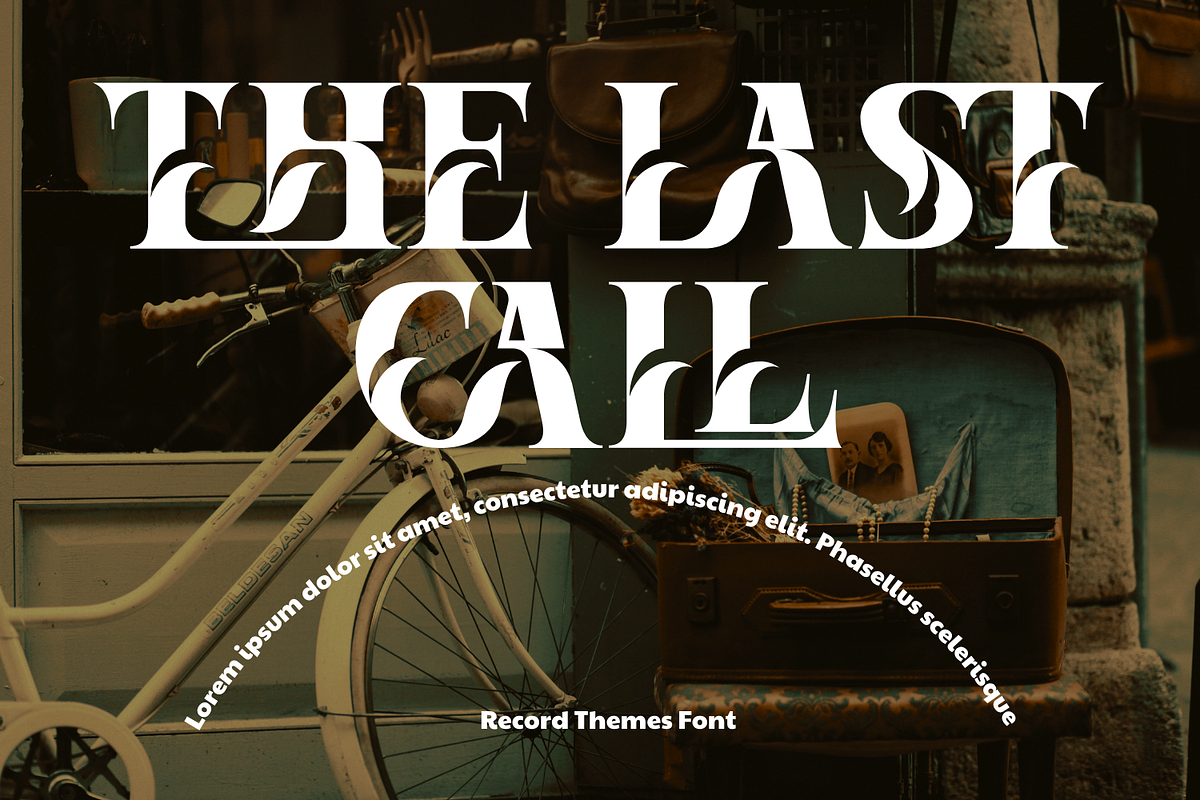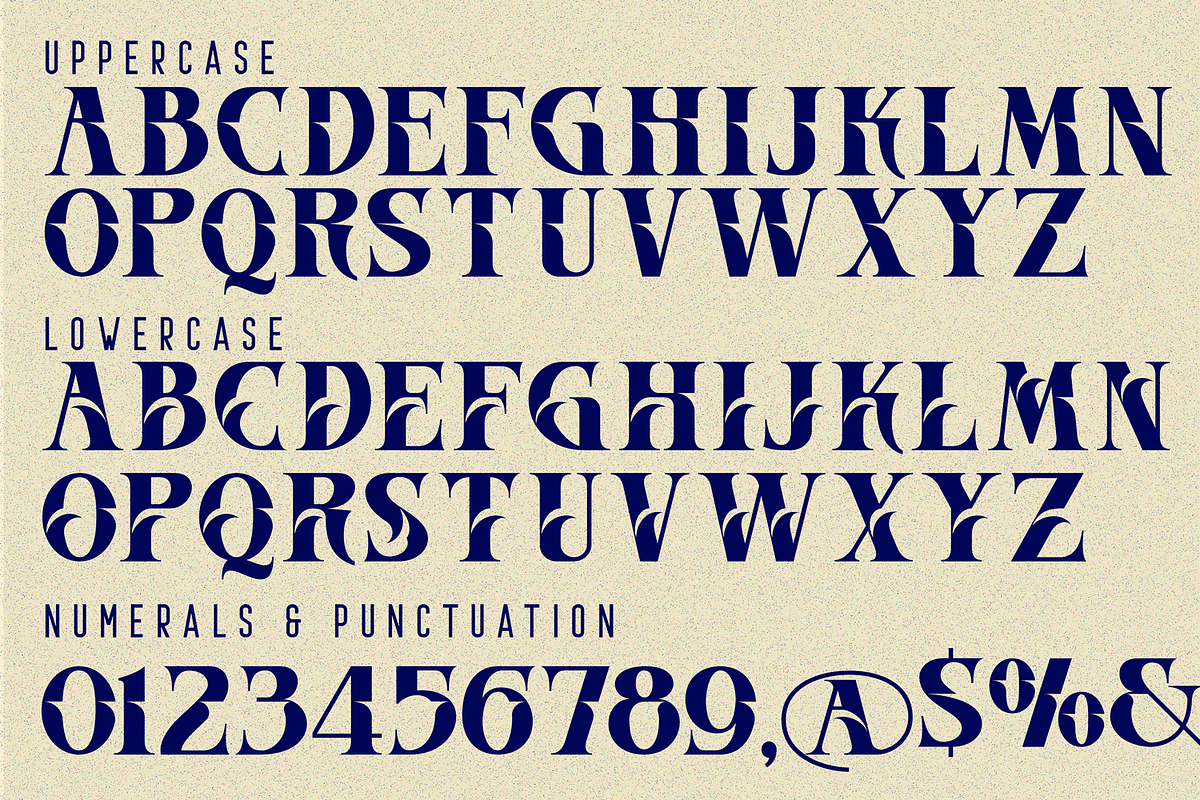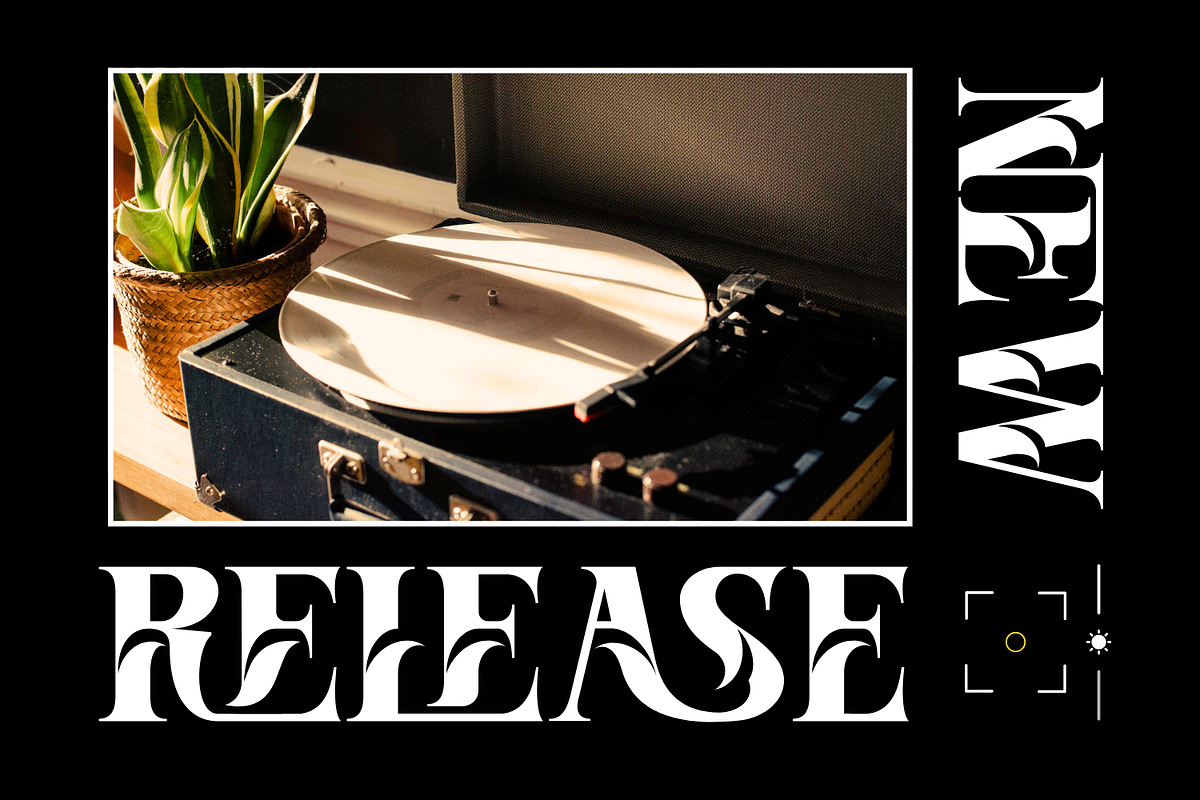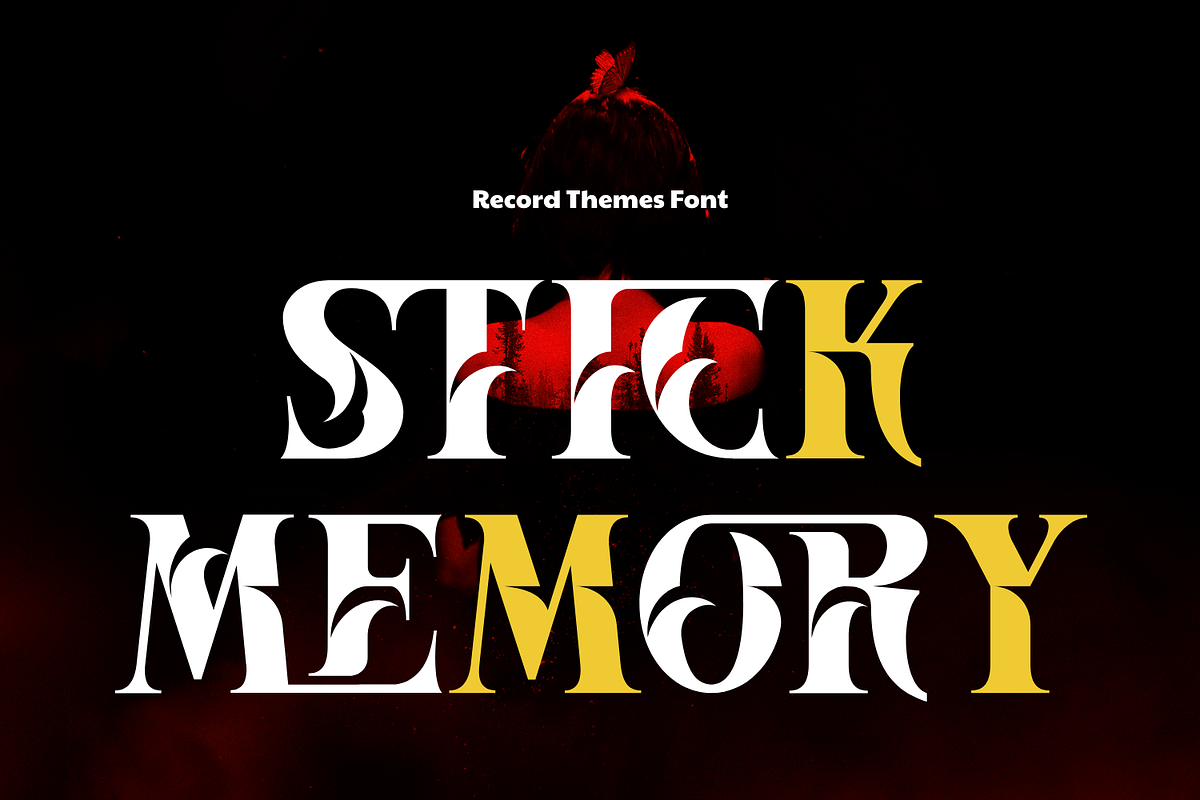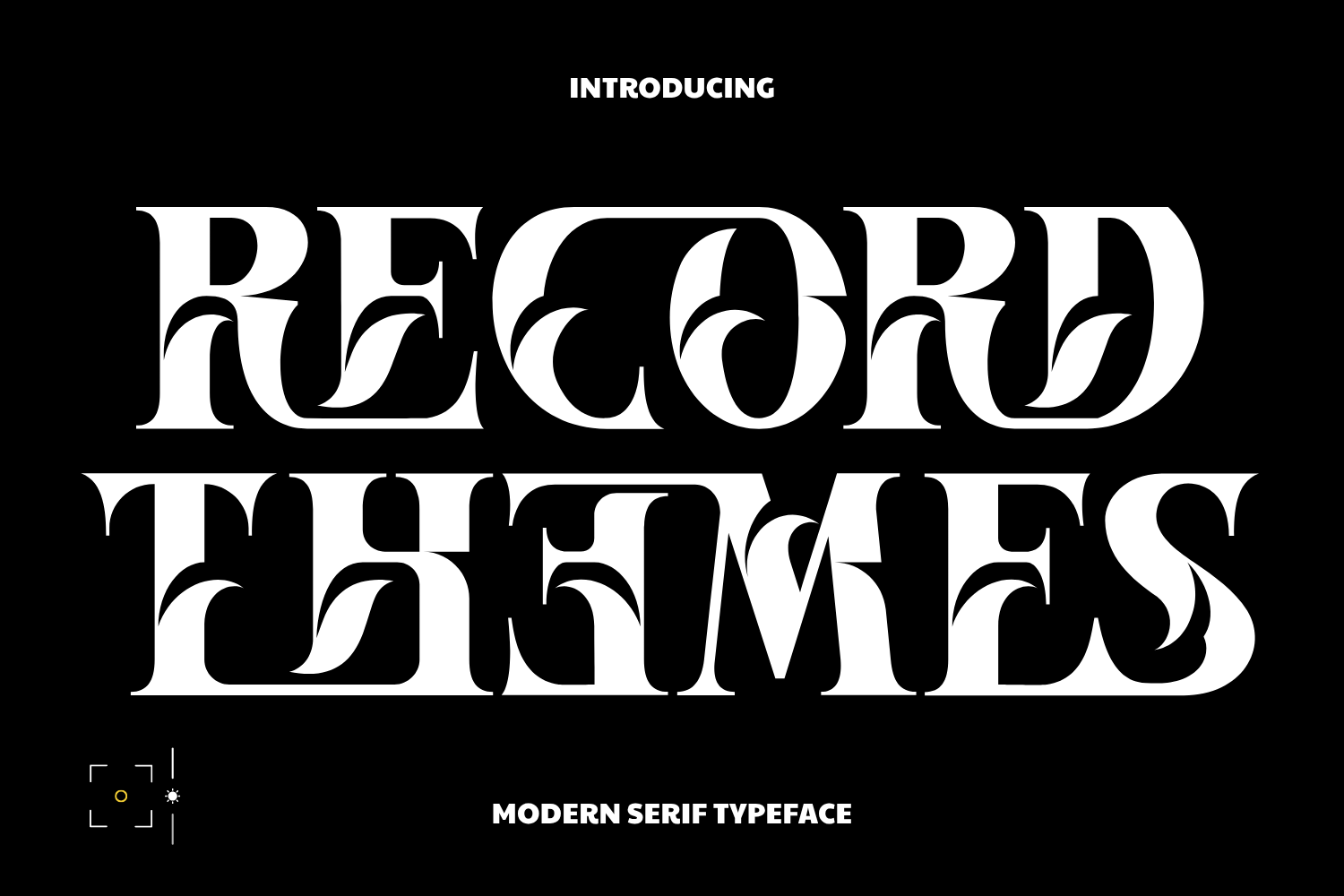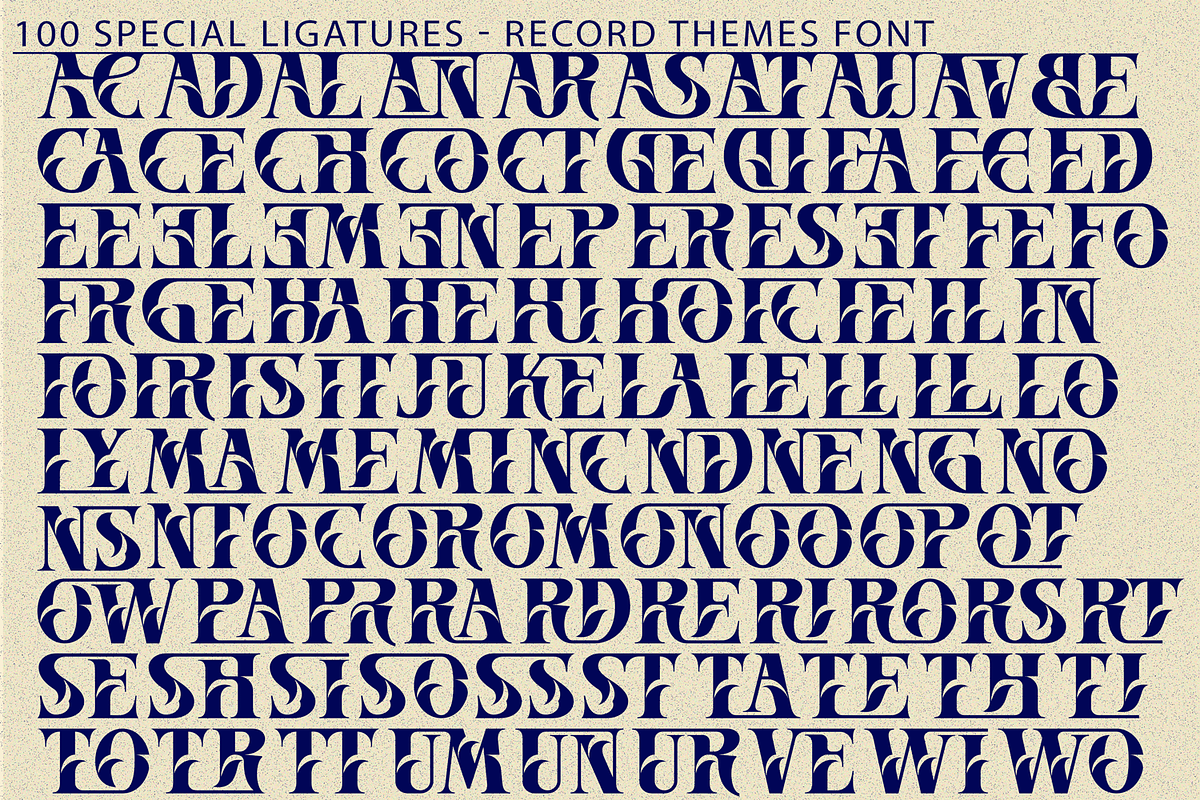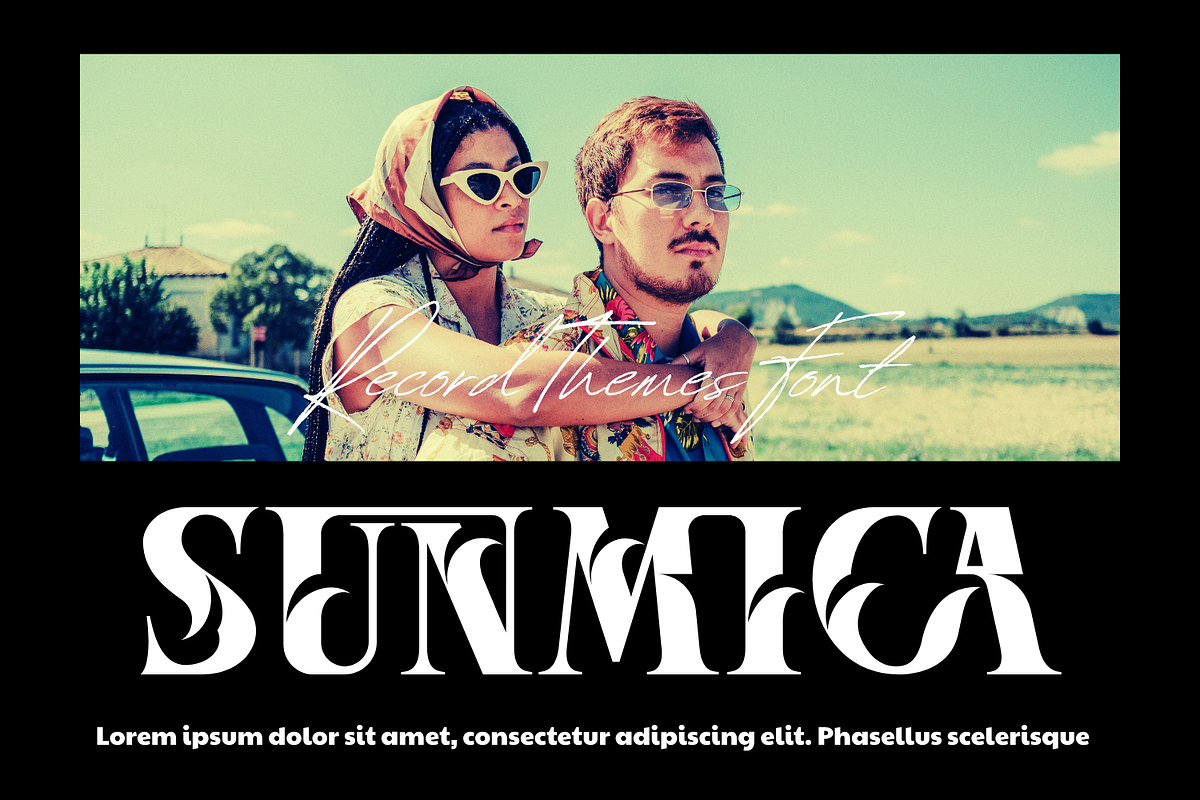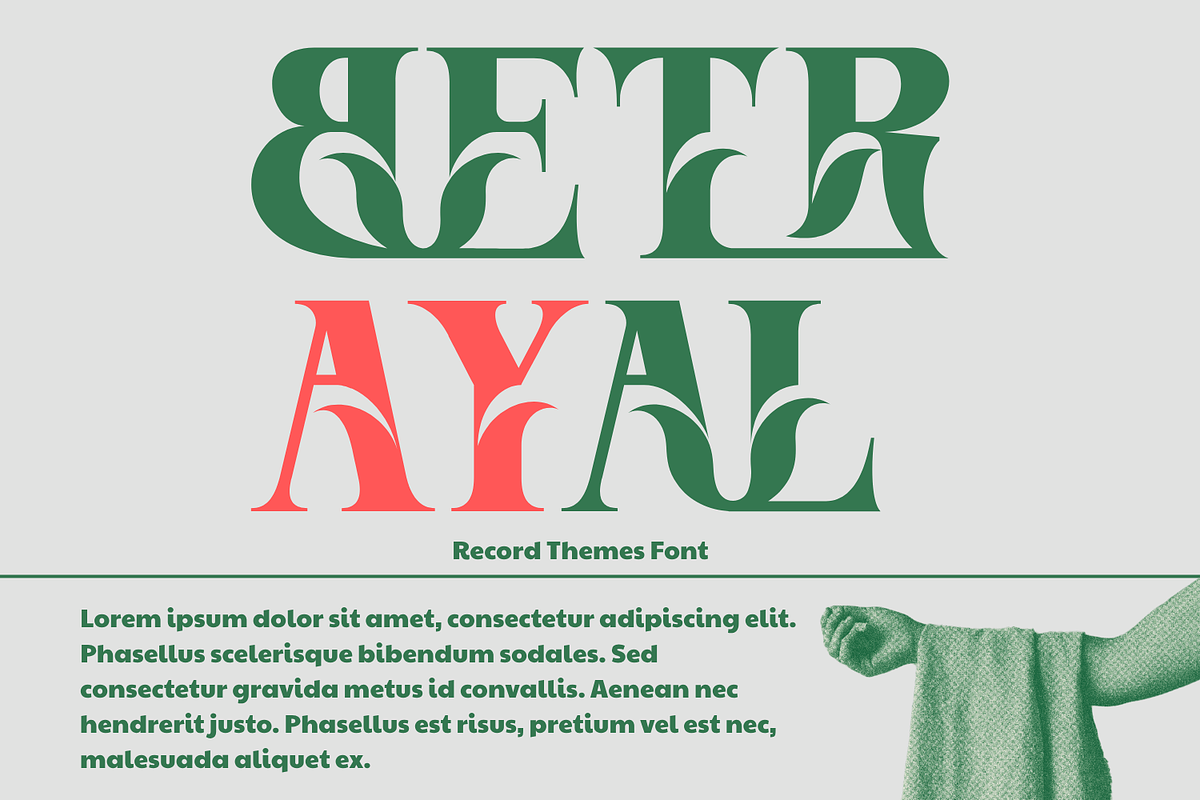
Record Themes - Elegant Font
Record Themes - Elegant Font is an elegant Ornamental Serif Display Font that blends classic serif structure with modern decorative artistry. Each letterform features sculpted leaf-like curves and bold negative-space detailing, creating a dramatic contrast that feels luxurious, stylish, and visually captivating. This unique interplay of sharp serif edges and smooth organic curves makes the font perfect for high-end branding, editorial design, packaging, logos, posters, and creative statement typography. Designed with versatility and artistic expression in mind, Record Themes brings a refined yet contemporary feel to any project. Whether used in large headlines or stylized lettering compositions, it delivers strong visual identity and unforgettable character.
- Uppercase and Lowercase Letters
- Around 100 Special Ligatures for expressive typography
- Multilingual Support with Accented Characters
About 100 ligatures combined with Stylistic Alternates Font:
ac ad al an ar as at au av be ca ce ch co ct de di ea ec ed ee el em en ep er es et fe fo fr ge ha he hi ho ie ic il in io ir is it ju ke la le li ll lo ly ma me mi nc nd ne ng no nt ns oc of om on oo op or ot ou ow pa pr ra rd re ri ro rs rt se sh si so ss st ta te th ti to tr tt um un ur ve wi wo